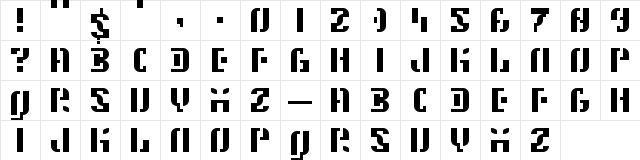
5Space Station Regular
| Designer | Noah - 11 year old typomaniac |
Design Context for 5Space Station Typeface
5Space Station is a composed and adaptable typeface that performs quietly and consistently across a wide range of design contexts.